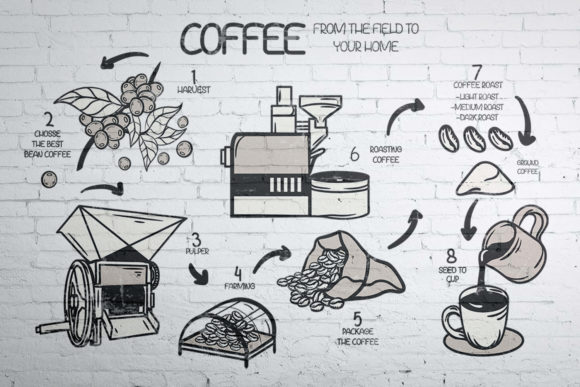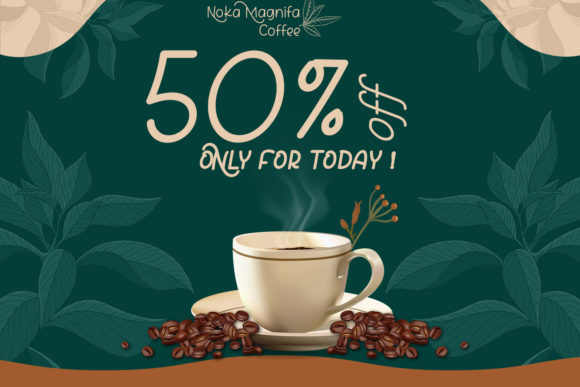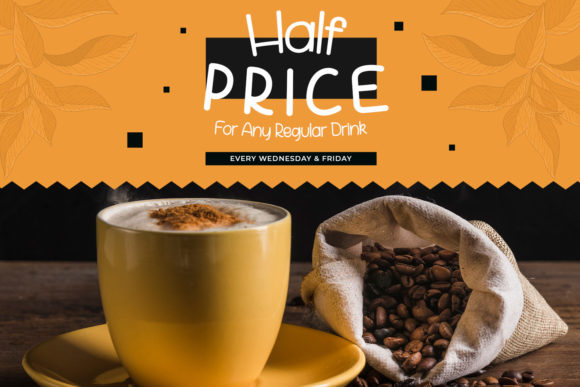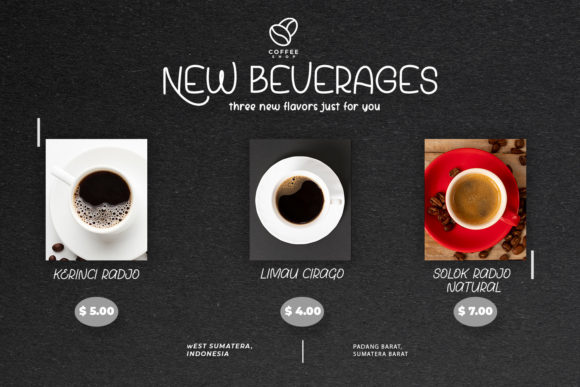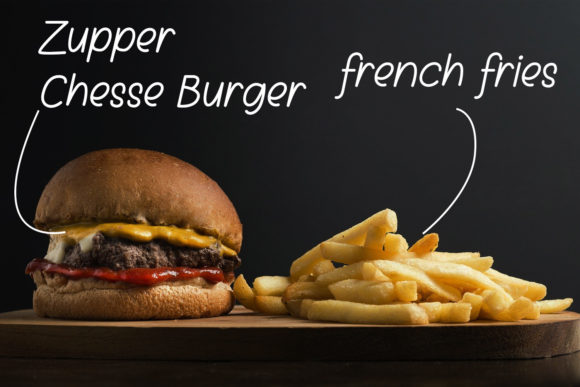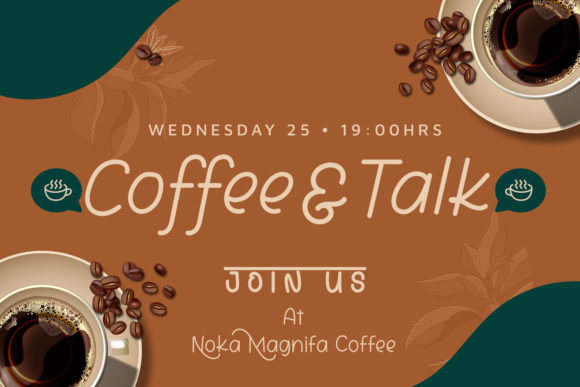
Mocha Frappuccino Font
About Mocha Frappuccino Font
Mocha Frappuccino is a simple and casual handwritten font. Its characters are easy to read and beautifully rounded, just perfect for your projects that need a personal feel.